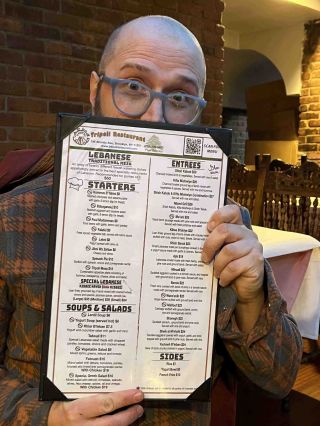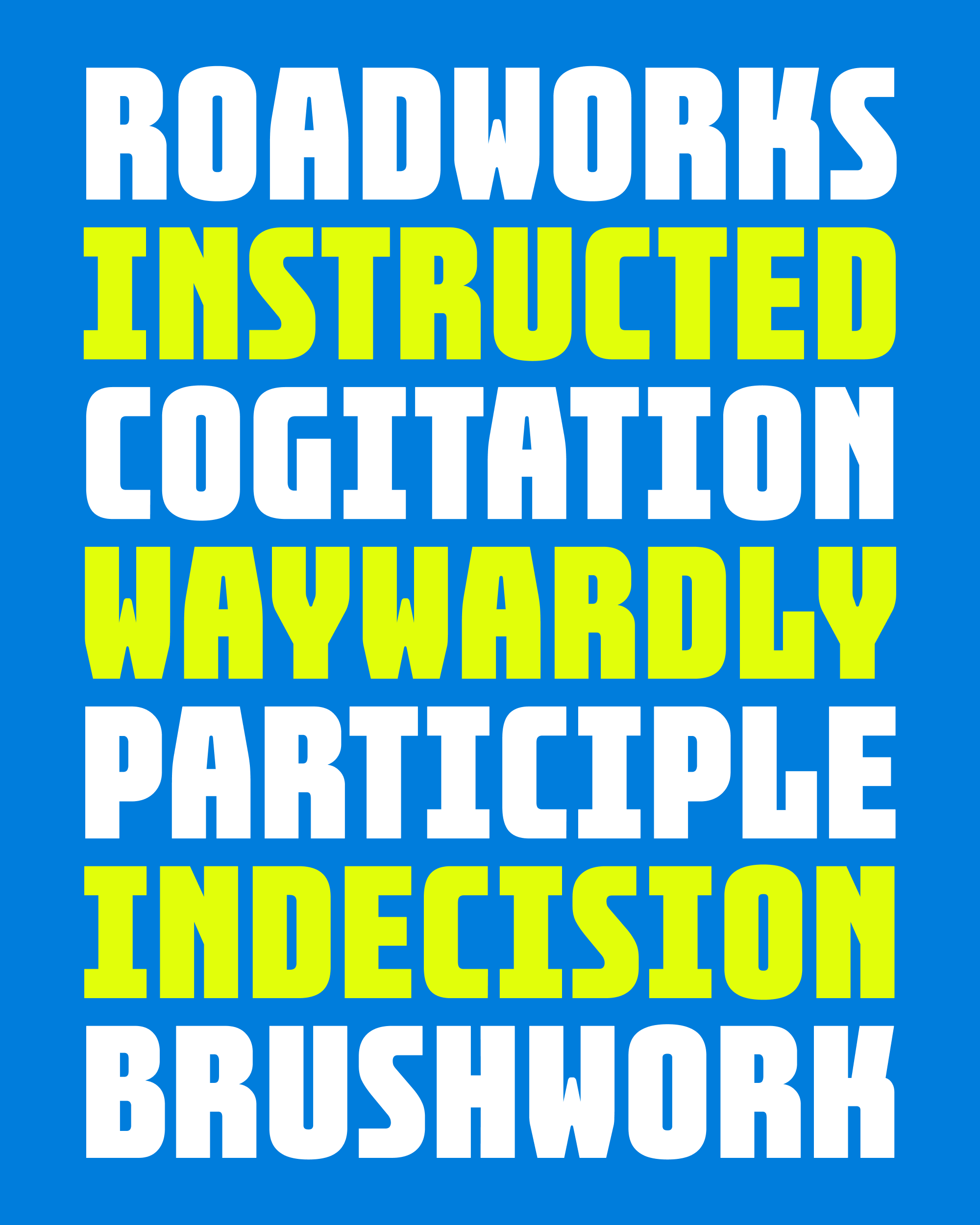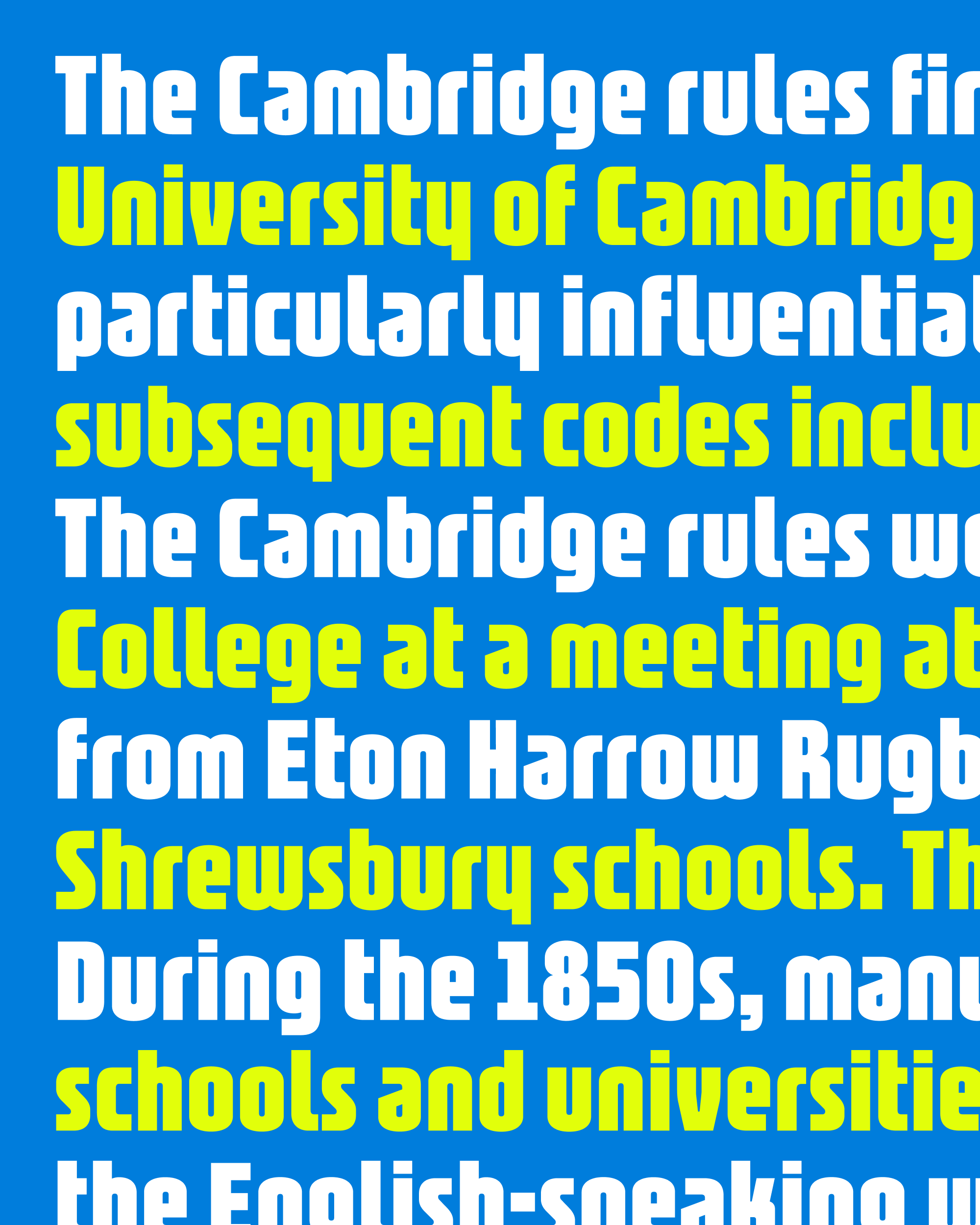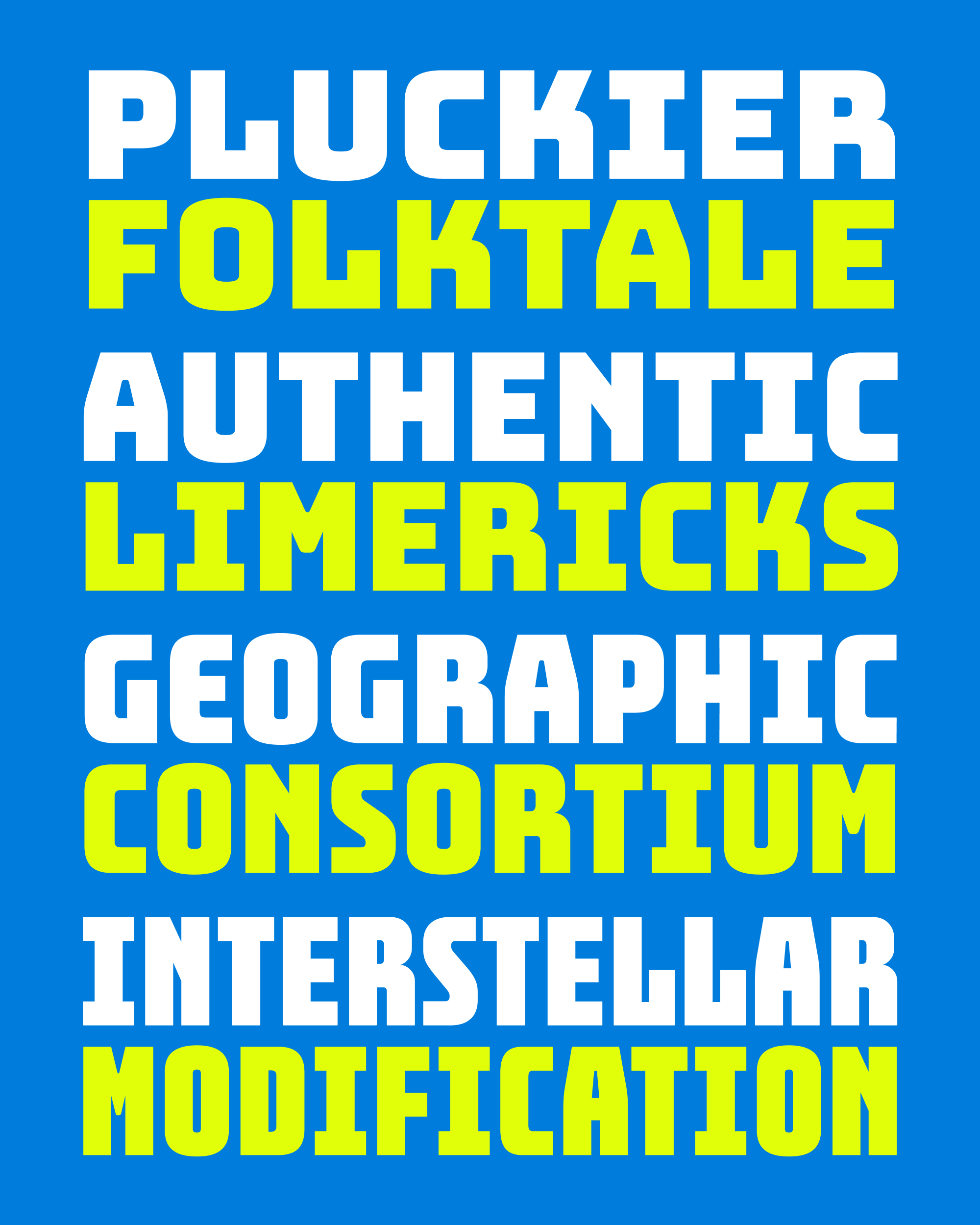
January’s Font of the Month: Bungee Widths
Last year, I sent you a story about how a squished use of my font Megavolt inspired me to make Megavolt Narrow. The moral of the story was that type designers should see stretching and squishing type not as a misuse, but as a challenge.
Living in the countryside, I don’t get to see Bungee in action as much as my city-dwelling friends. But every once in a while I pass through a city and see it in the wild. After encountering some squished Bungee on a restaurant menu, I decided it was finally time to accept the challenge that was presented to me and draw some Bungee Widths.
Some lightly-squished Bungee on the menu at Tripoli. Photo by Nick Sherman, designer of the Bungee minisite.
Bungee was inspired by and designed for vertical signs with stacked letters—its vaguely-monospaced appearance, straight sides, and distinctive serifs on I and L all stem from those origins. Even though the vast majority of Bungee uses are horizontal, I love that these little vertical details seep into each use of the typeface.
But let’s forget about vertical typesetting for the moment. Don’t get me wrong…I love a font with a gimmick, and I will choose a purpose-driven “gimmick font” over a general-purpose “vibes font” any day of the week.
But at a certain point, a gimmick font needs to transcend its gimmick and just be a font. Bungee has found its way onto everything from seltzer cans to sports programming to Pokémon books, and most of those users were not worrying about vertical text. And it has been refreshing for me to return to Bungee all these years later and not feel compelled to worry about it either.
With straight sides and open apertures, Bungee had no trouble getting narrow. I started by over-squeezing each letter, down to about 40% of the original width. Then I added back the necessary stem thickness to the outside of the shape, widening it back to about 70% of the original width. Finally, I thinned out the horizontal strokes, elongated the vertical straight segments, and un-squished each curve.
While I was revisiting the design, I also played around with reducing Bungee’s rounded corners (now available as a variable axis) and tried my hand at a lowercase too (currently available in a separate font, only for the Extra Condensed width). I’m still not sure about the diagonal crossbar on that lowercase a!